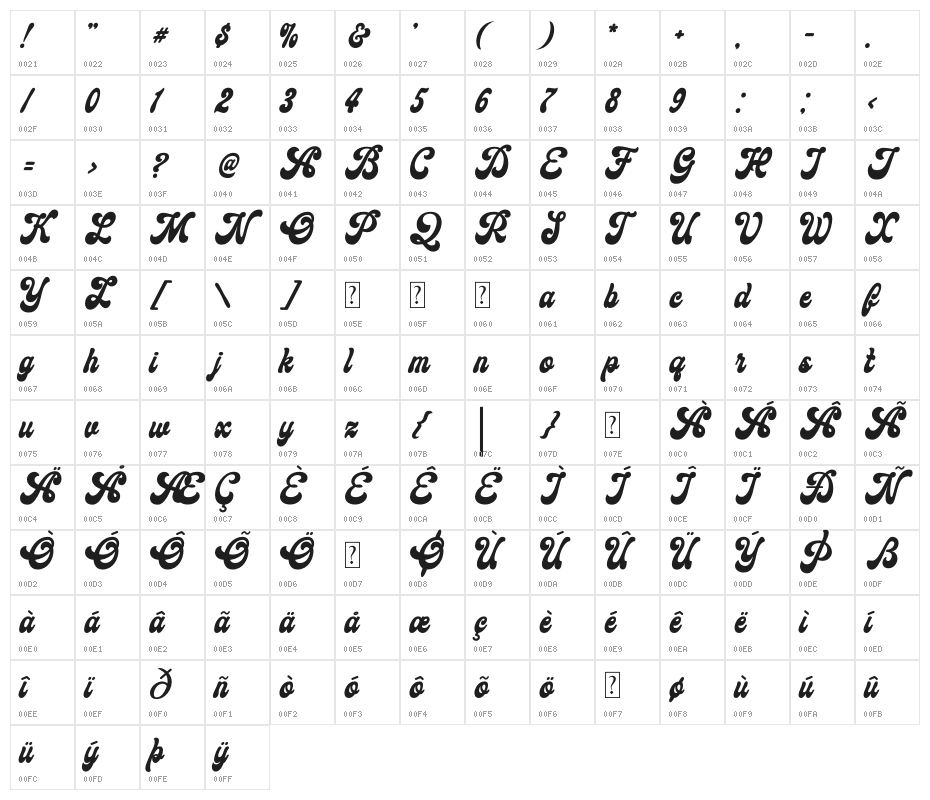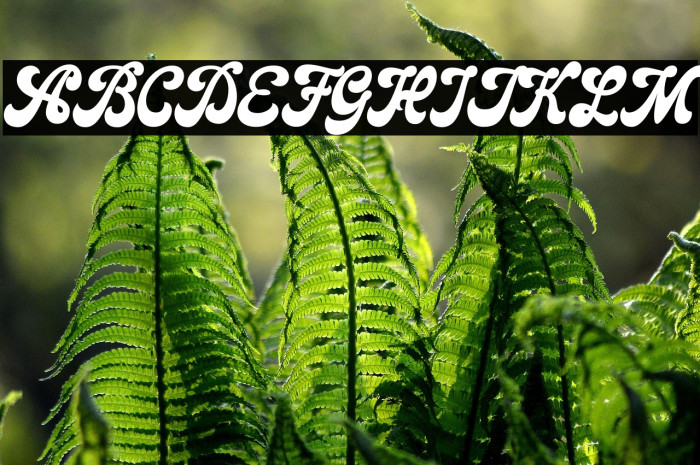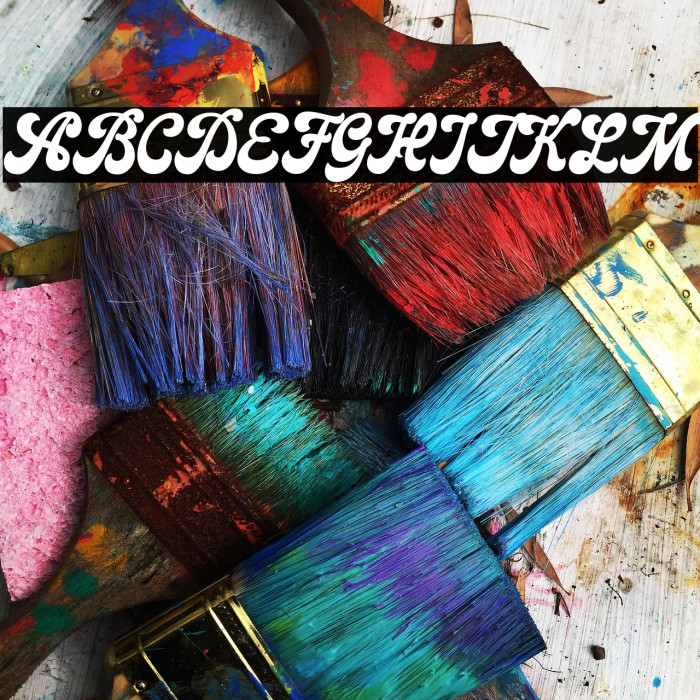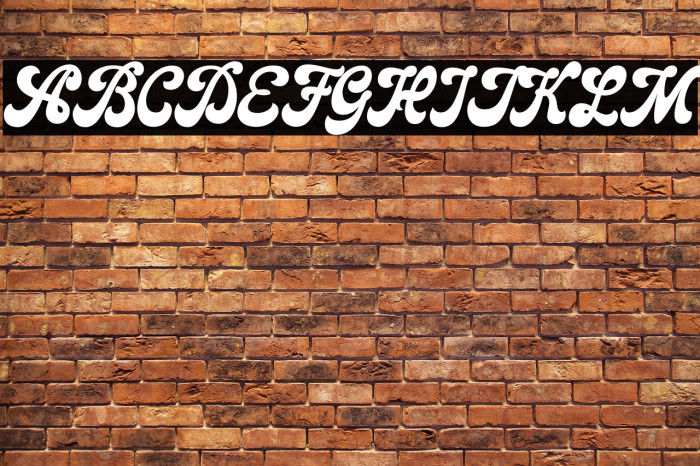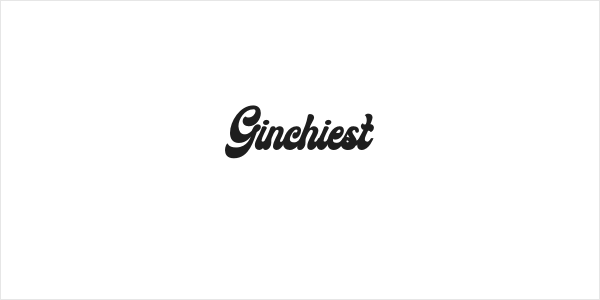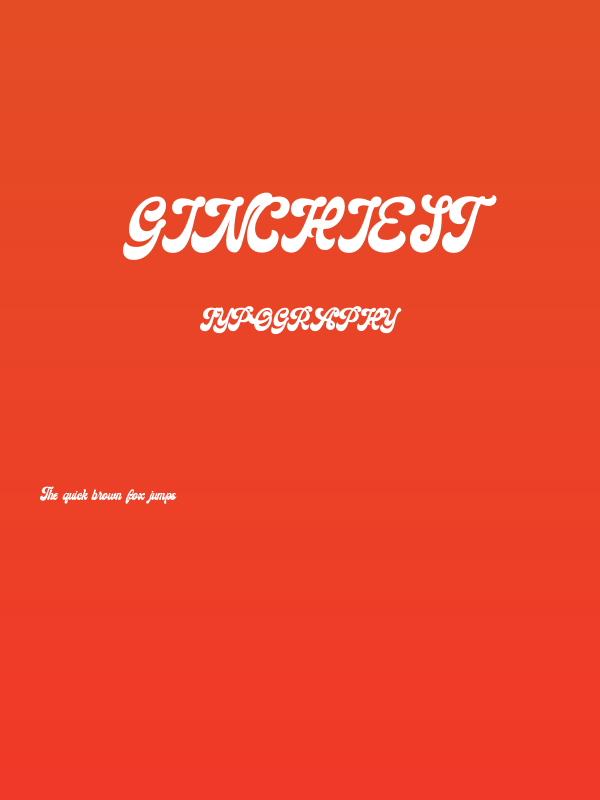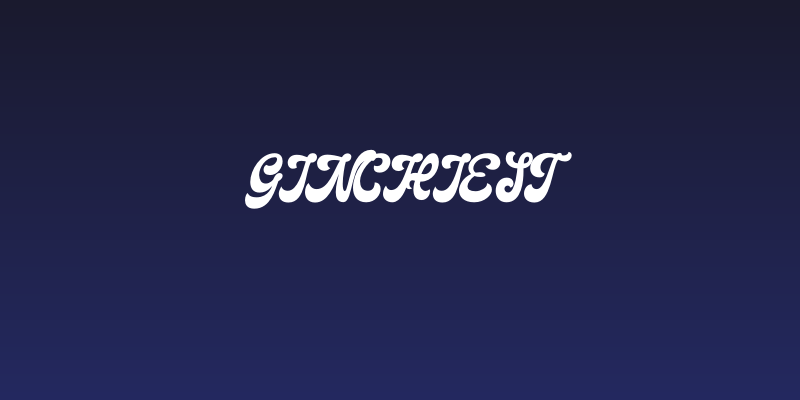
Ginchiest Font
This font features a bold, cursive style with a playful and energetic flair. The letters are interconnected, creating a flowing script that is both dynamic and expressive. The uppercase characters maintain a consistent height, while the lowercase letters exhibit a slight slant, enhancing the font's fluidity. The numerals are equally bold, matching the overall aesthetic of the alphabet. Special characters are designed with the same attention to detail, ensuring a cohesive look across all glyphs. The thick strokes and rounded edges give it a friendly and approachable appearance, making it suitable for a variety of creative applications.
| Proposed Projects | Ideal for branding, posters, invitations, and any project requiring a lively and engaging script. |